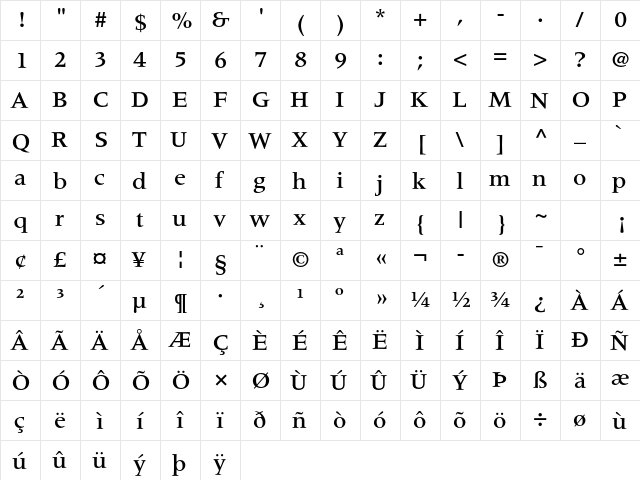
Meridien LT Std Medium
Medium ·  Adrian Frutiger ·
Design Context for Meridien LT Std Typeface
Meridien LT Std takes a measured approach to typography — its balanced proportions and neutral character make it a reliable workhorse for both digital and print work. Its slender proportions lend an understated elegance to any composition.